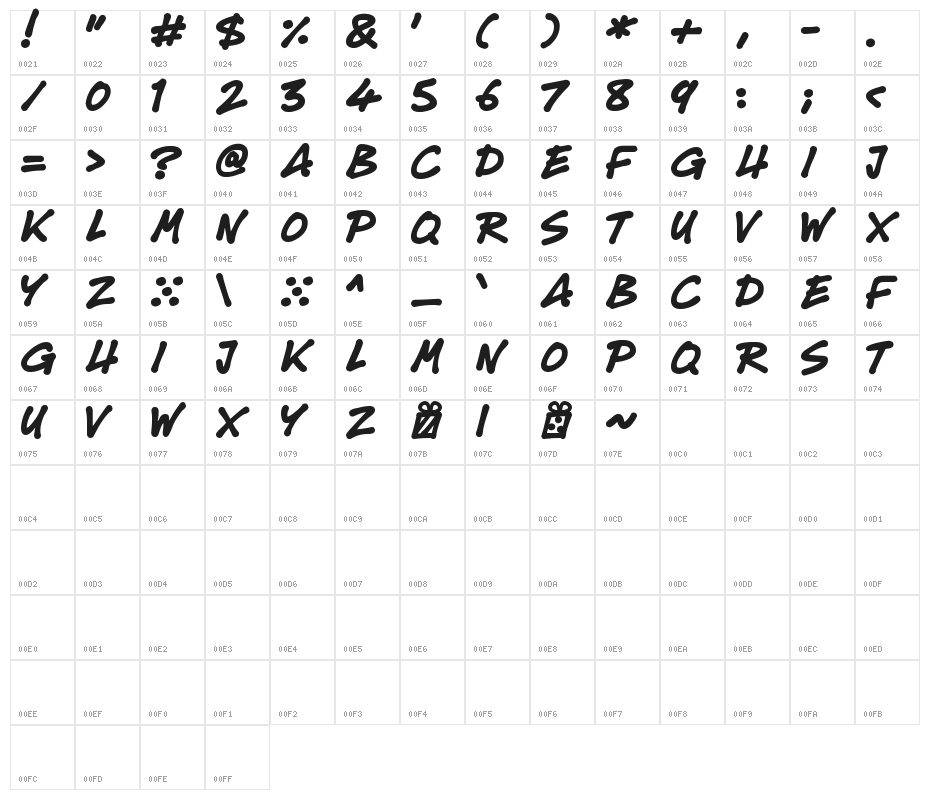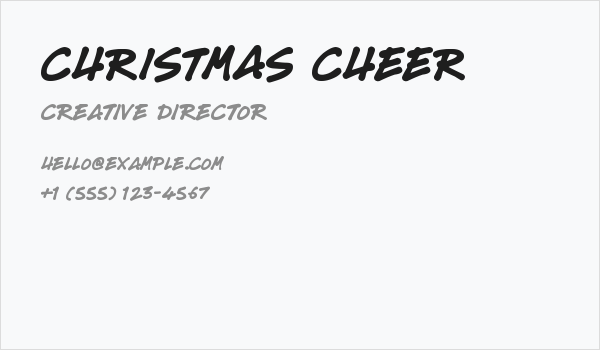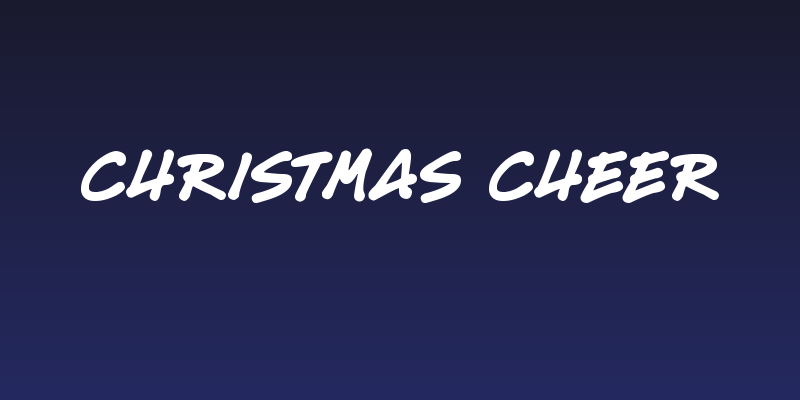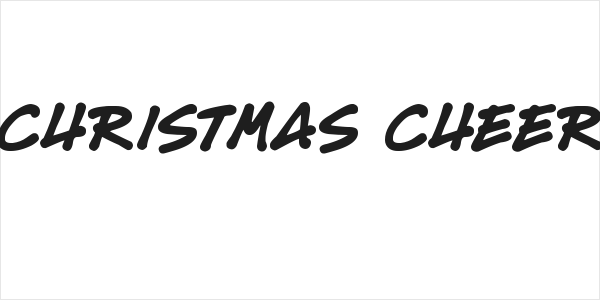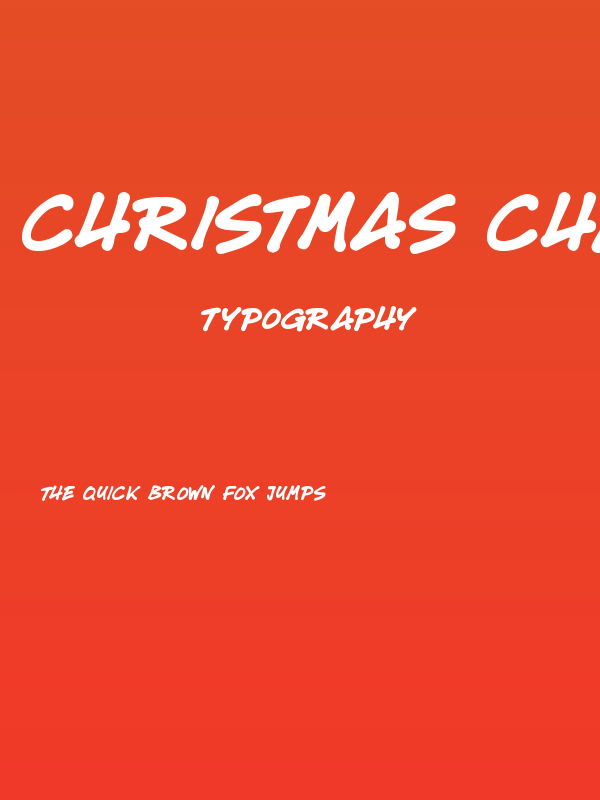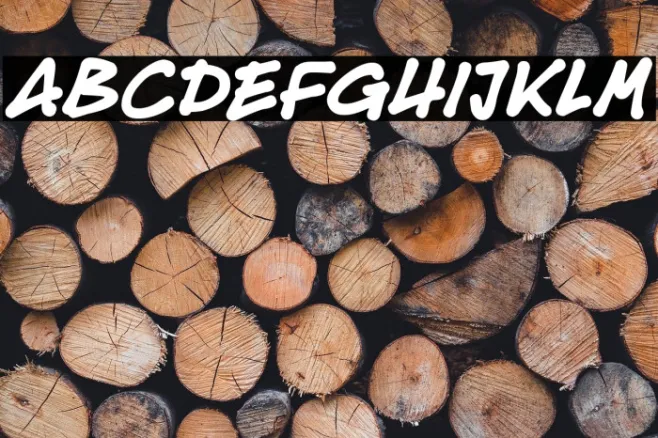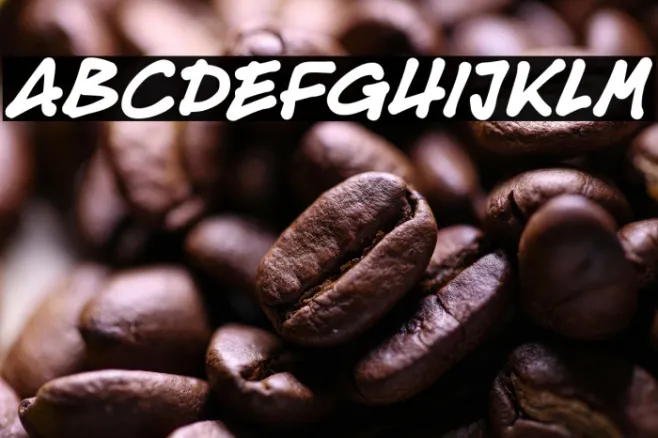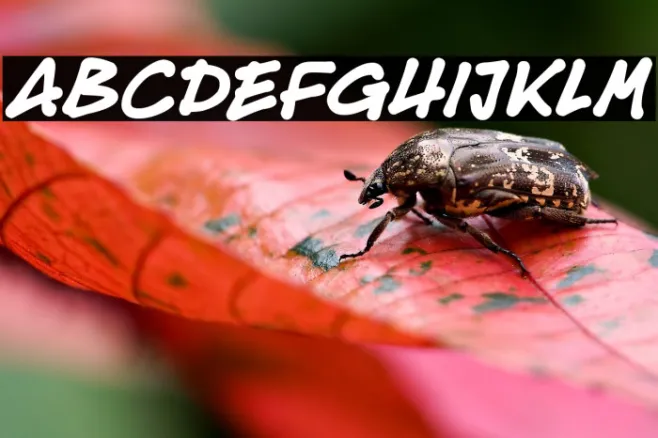
Christmas Cheer Font
Christmas Cheer Description
This font features a bold and playful script style, characterized by its smooth, flowing curves and slightly slanted letters. The uppercase and lowercase letters maintain a consistent thickness, creating a cohesive and energetic appearance. The numbers and special characters follow the same dynamic style, making them easily readable while adding a touch of whimsy. The font's overall look is lively and festive, ideal for capturing attention and conveying a sense of joy and celebration.
| Proposed Projects | Ideal for holiday cards, festive invitations, playful branding, and cheerful posters. |